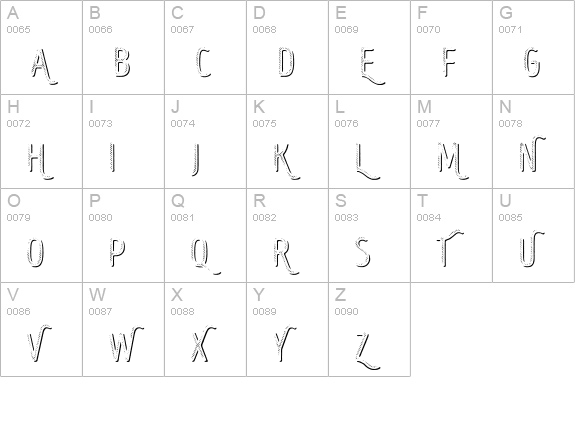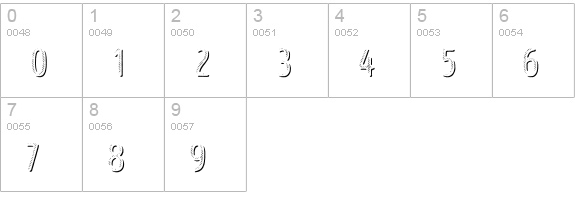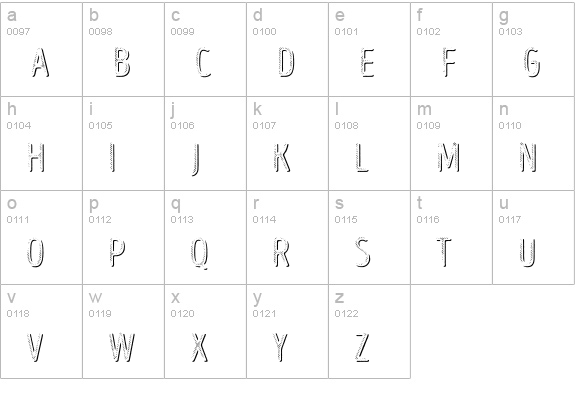
Intro Head R UC L Shade Font Details
The Intro Head R UC L Shade font is a striking and bold typeface that exudes a sense of modernity and sophistication. Its unique design features sharp lines and distinct shapes, making it perfect for creating eye-catching headlines and titles. With its elegant and edgy appearance, this font is sure to make a statement in any design project. Best of all, the Intro Head R UC L Shade font is available for free download at FontsMarket.com. Whether you're working on a poster, website, or branding project, this font will add a touch of style and flair to your work. Don't miss out on the opportunity to enhance your designs with this stunning typeface that is both versatile and impactful. Download the Intro Head R UC L Shade font today and elevate your design projects to the next level.